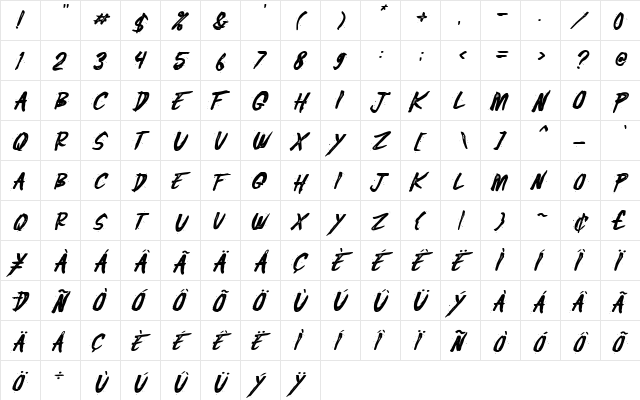
rostoh Italic
Design Context for rostoh Typeface
rostoh is a composed and adaptable typeface that performs quietly and consistently across a wide range of design contexts. The slanted form adds forward momentum and visual energy.
Pro Tip: Try rostoh for annotation and caption copy alongside an upright companion — the contrast in angle creates a dynamic but ordered typographic system.